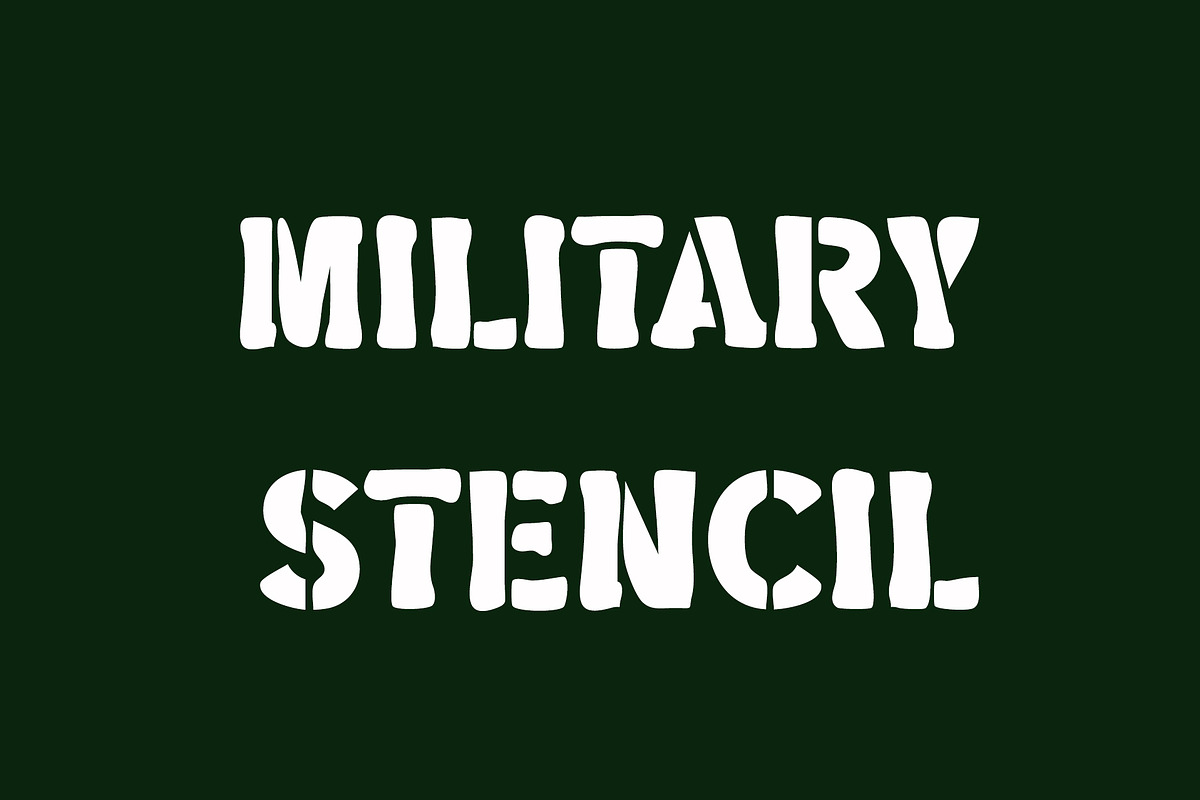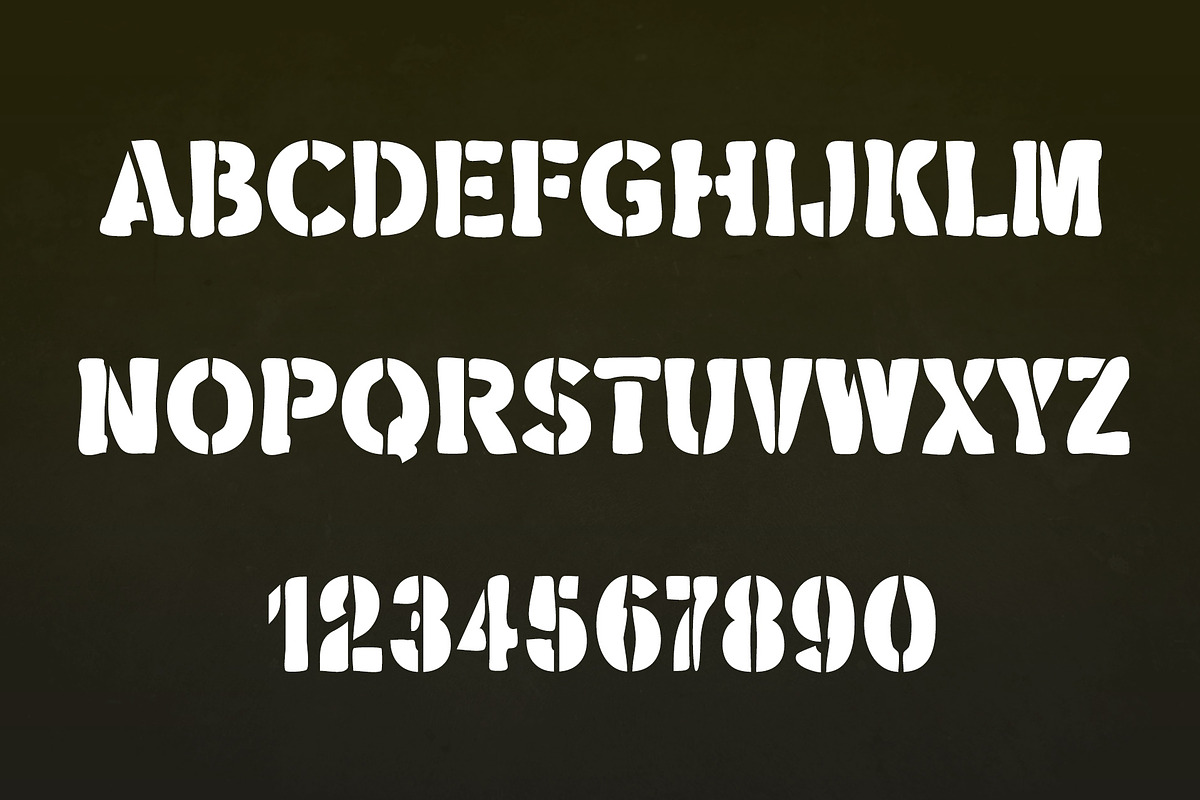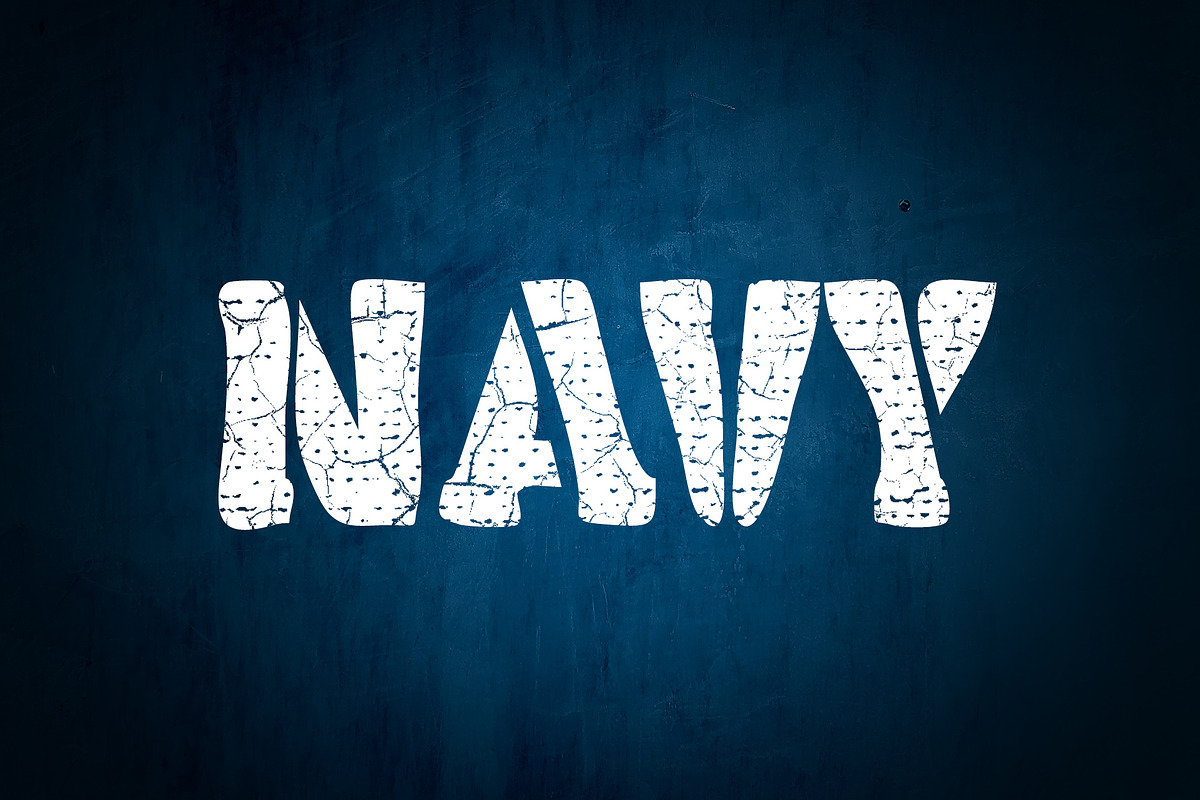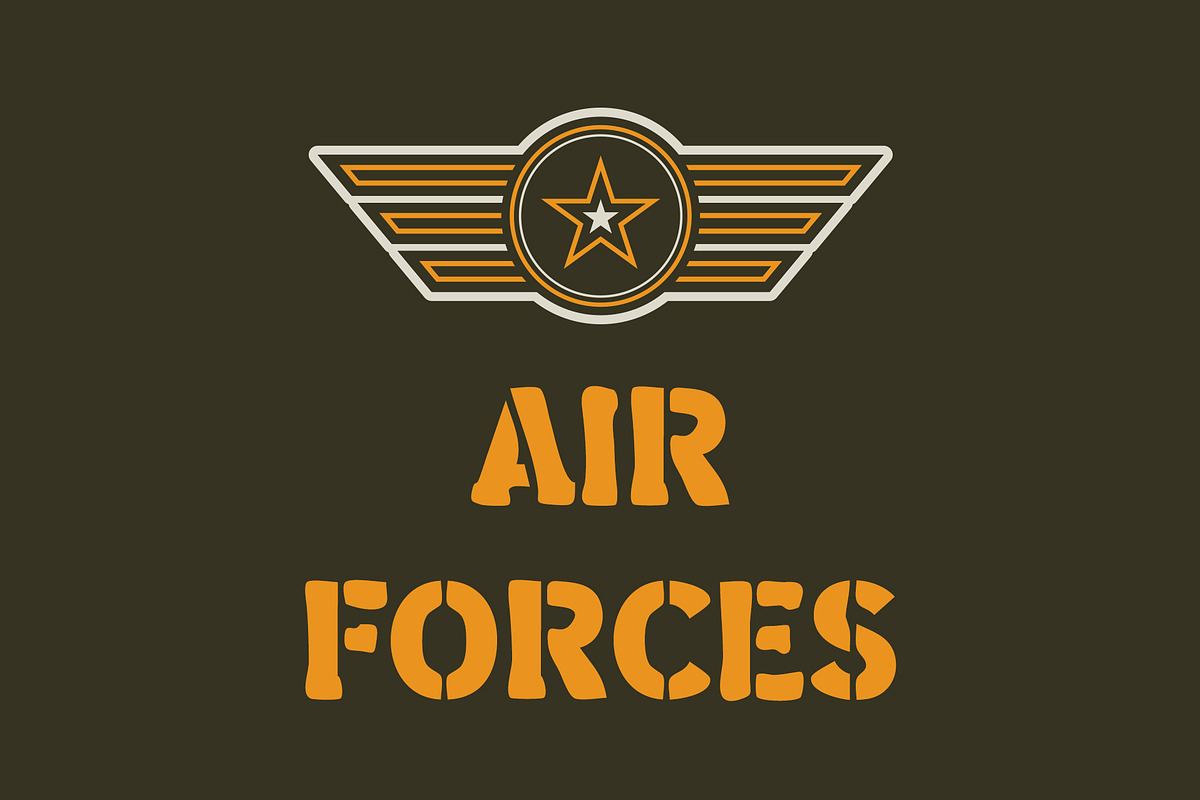
Military Stencil Font
Military Stencil Font.
Military Stencil is a cool and bold display font, featuring the perfect amount of trendiness. This original look will appeal to a wide range of crafty ideas, from letterheads and titles, to stationery.